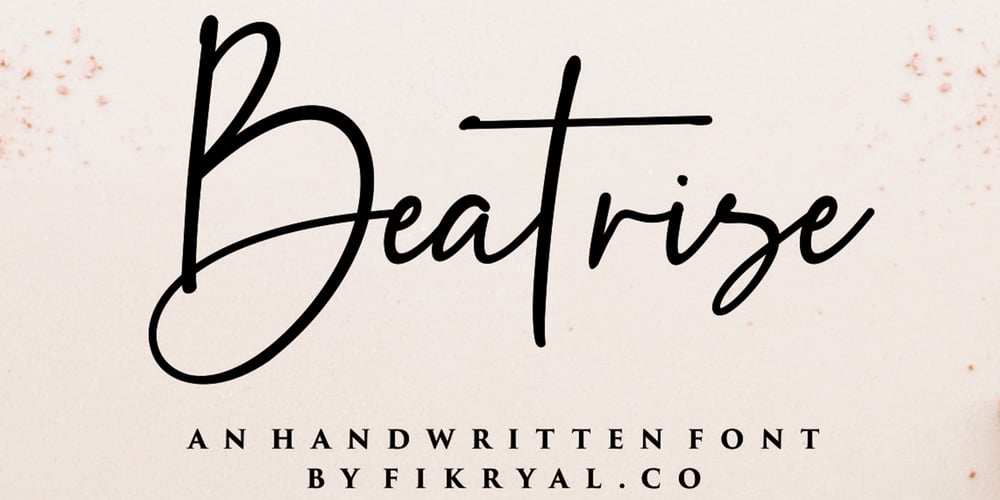
Beatrise
Beatrise font
Beatrise Font Family was designed by Muhammad Fikry and published by Fikryal. Beatrise contains 1 styles and family package options. Beatrise is a new modern and stylish handwritten font. It’s perfect for logos, branding, invitations, tittles, wedding designs, social media posts, advertisements, product packaging, product designs, labels, photography, watermarks, special events, magazines, web design, etc. If you have any questions please don’t hesitate to contact me. ๐Ÿ™‚ Thank you